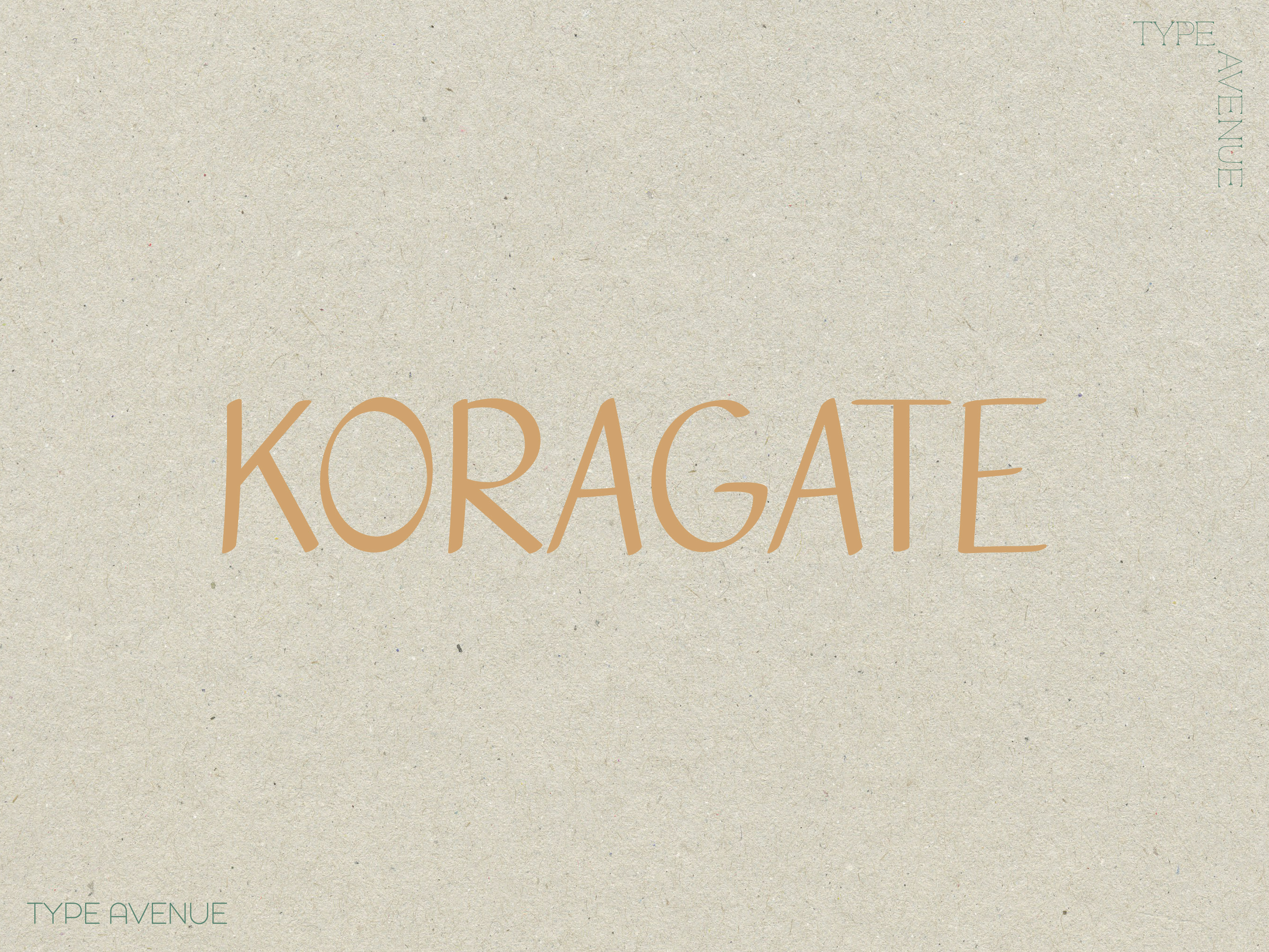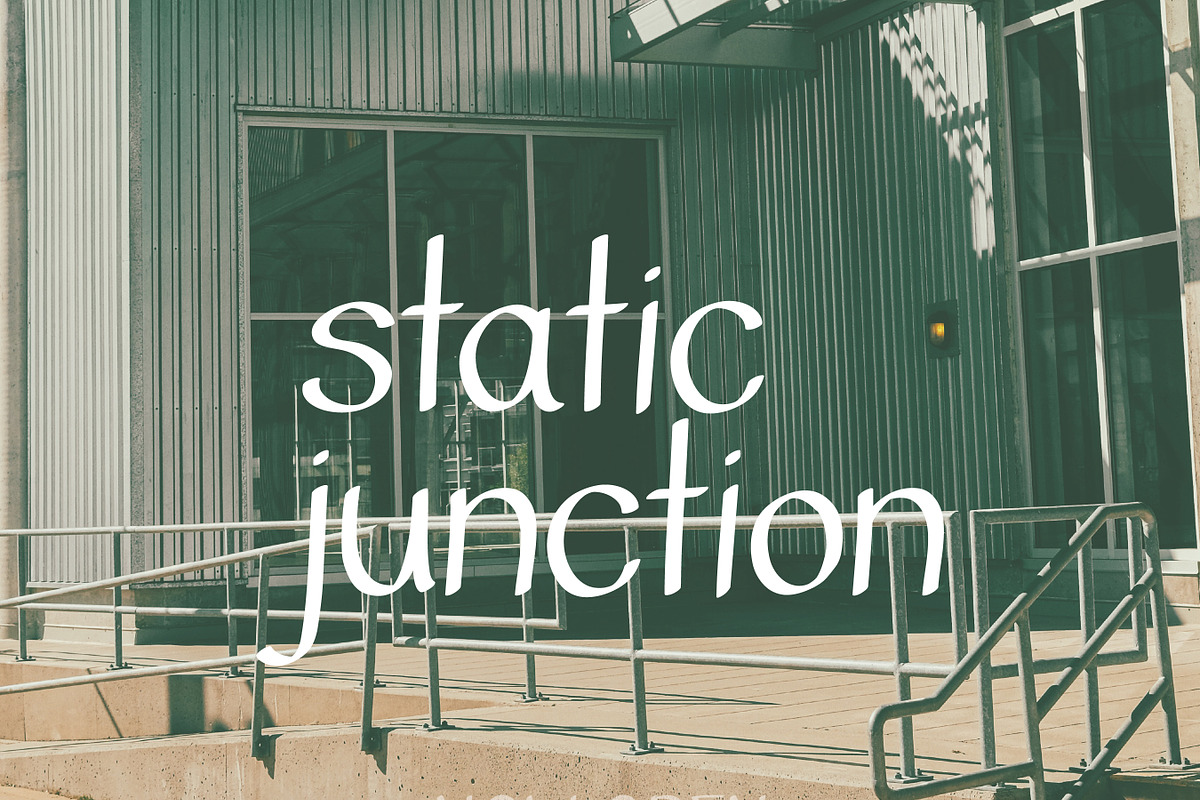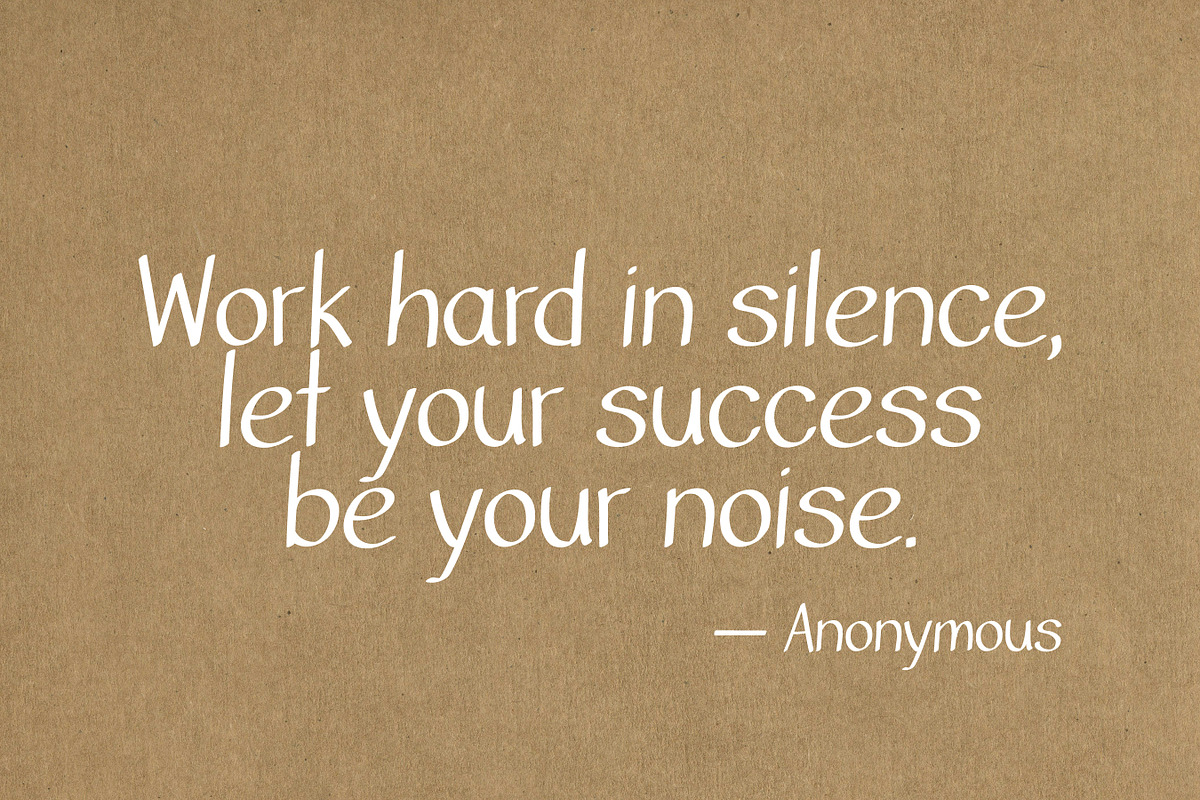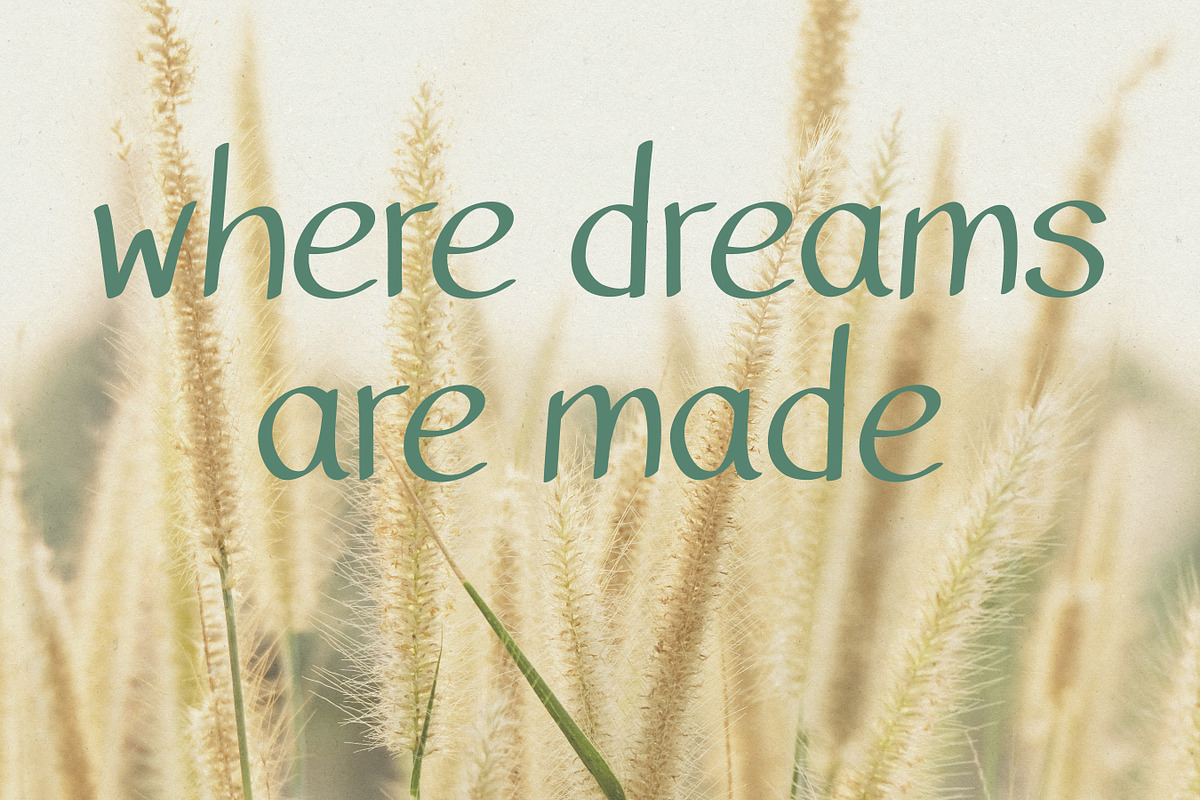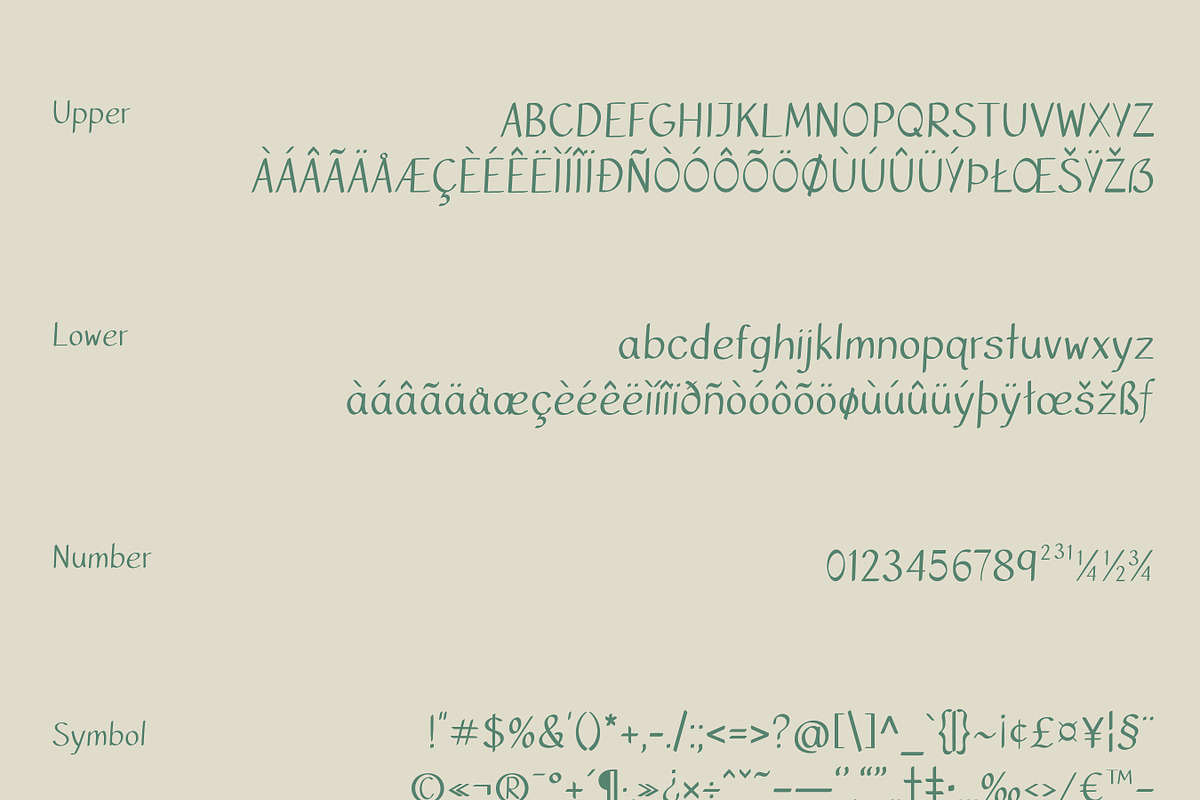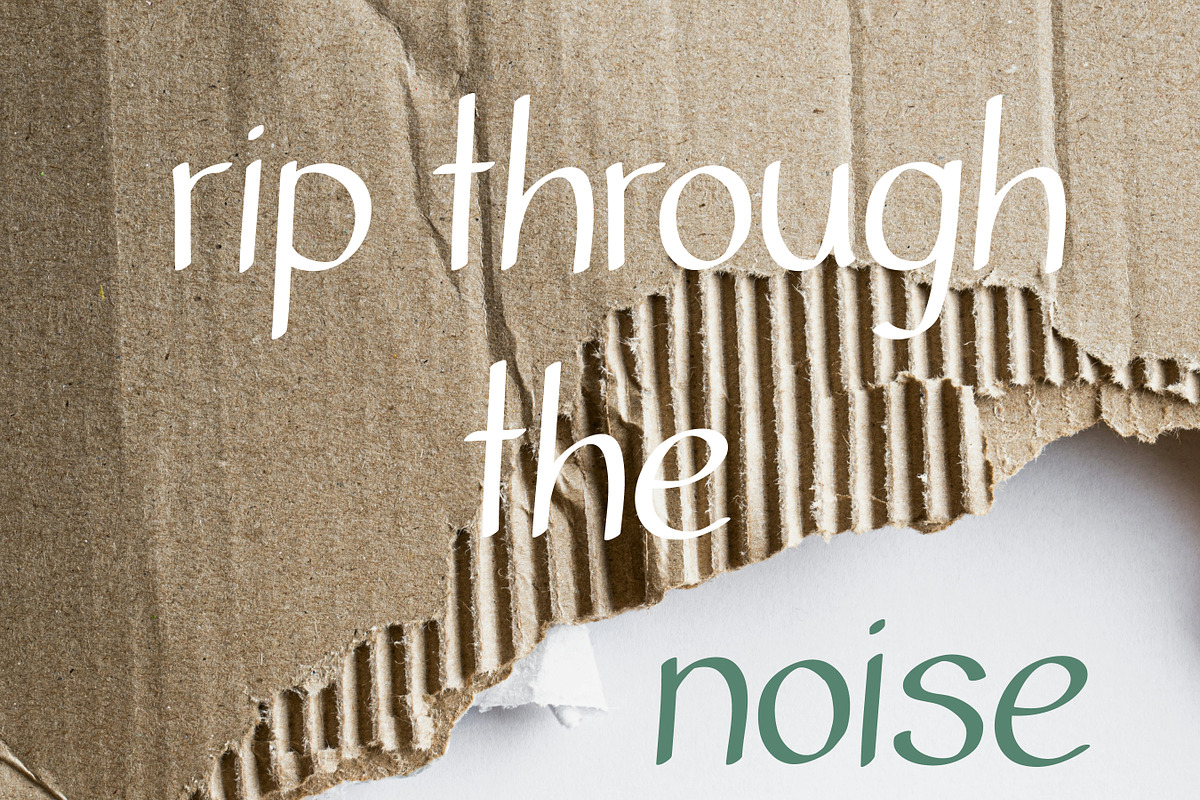
Koragate Font
Koragate is a neat font that is perfect for an organic handwritten look. It features slightly angled glyphs for a natural feel. This font is perfect for personal uses or branding for an informal bohemian look.
Great for branding, crafting, display font, wall art, handcrafted, hand written, handwritten, digital planner, and so much more.